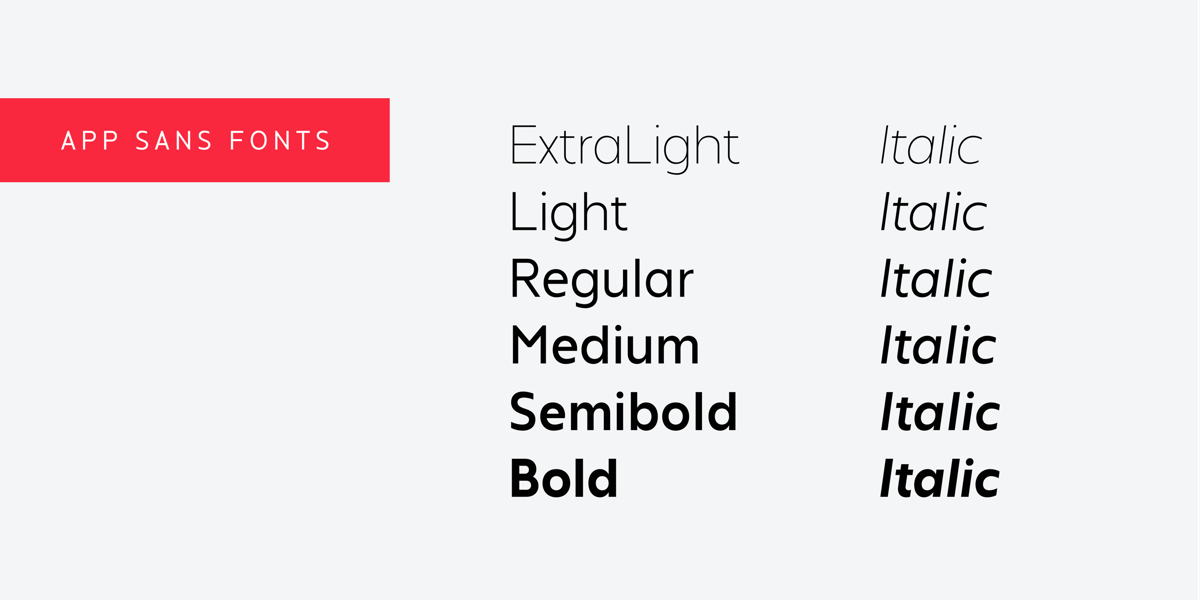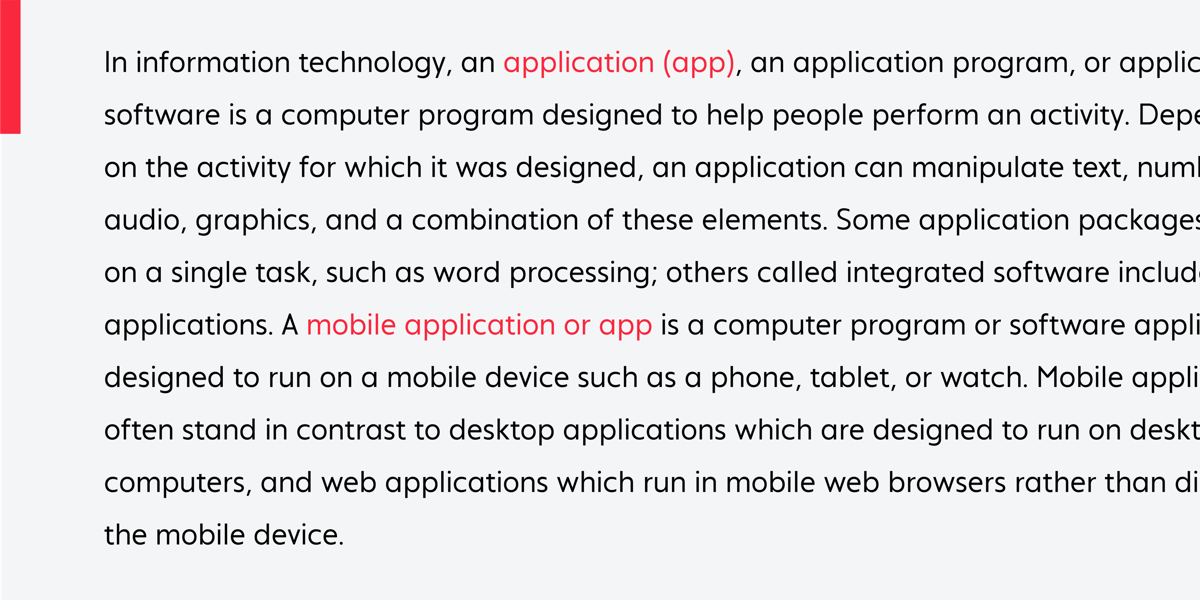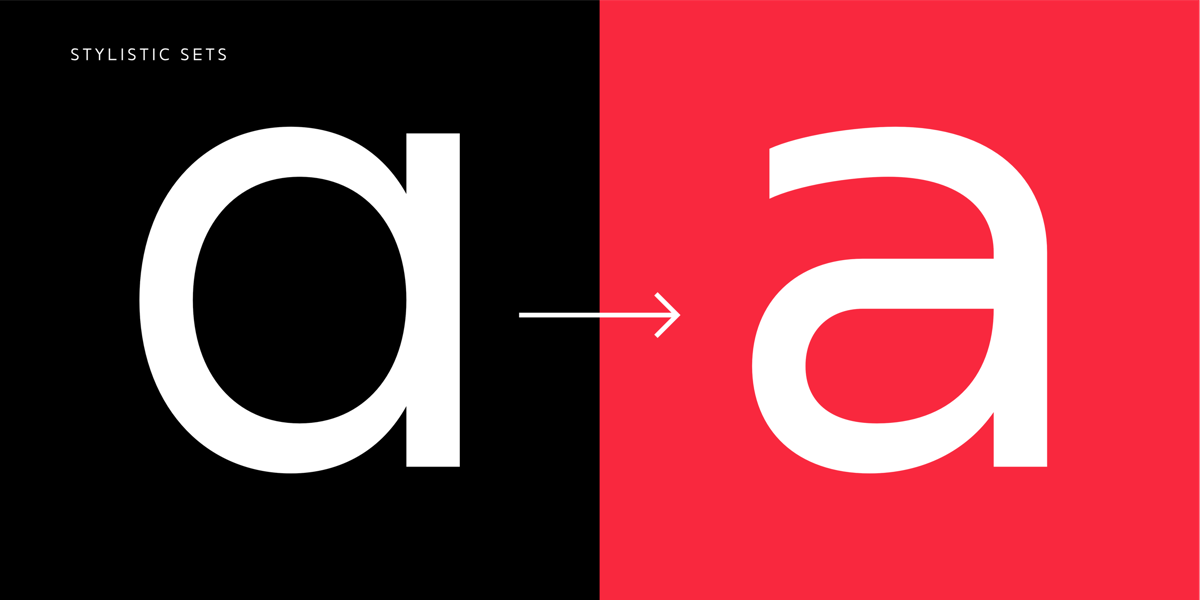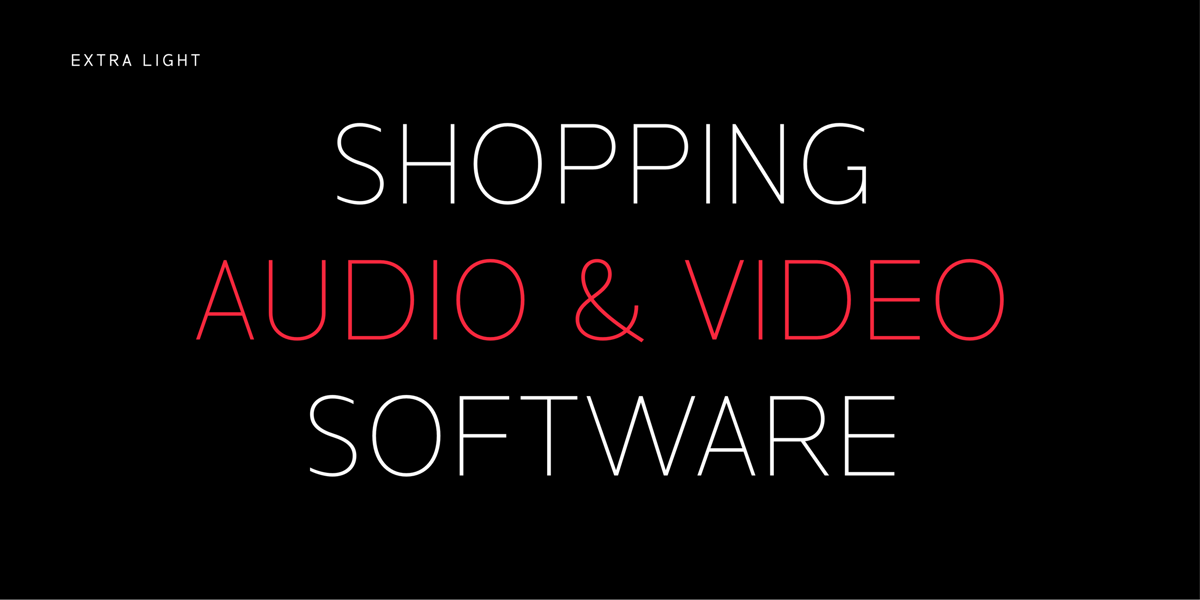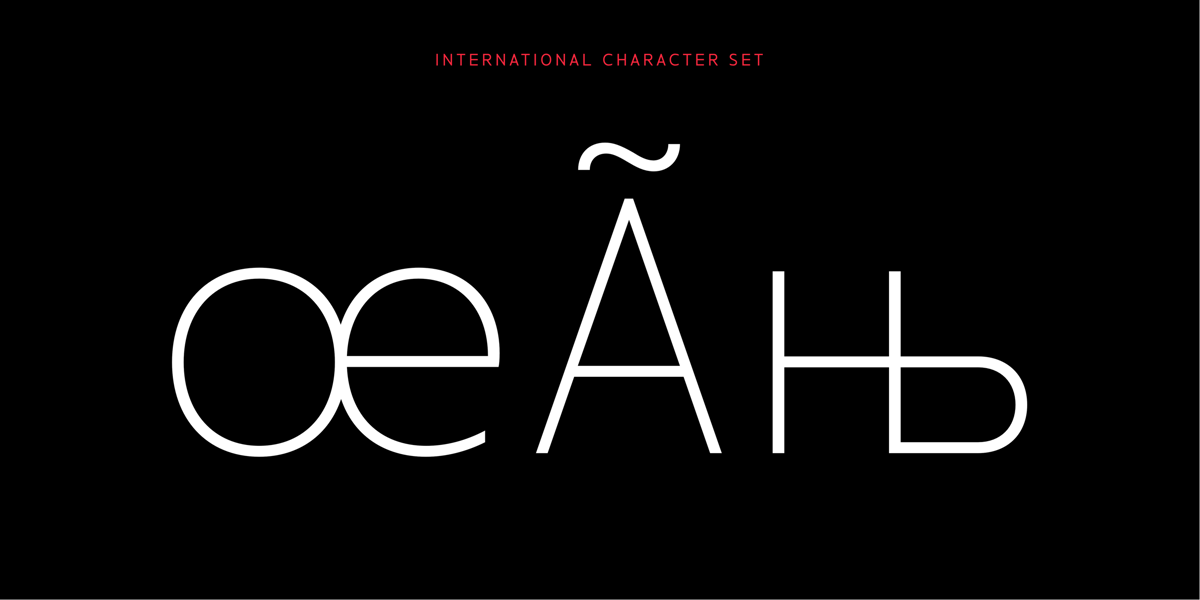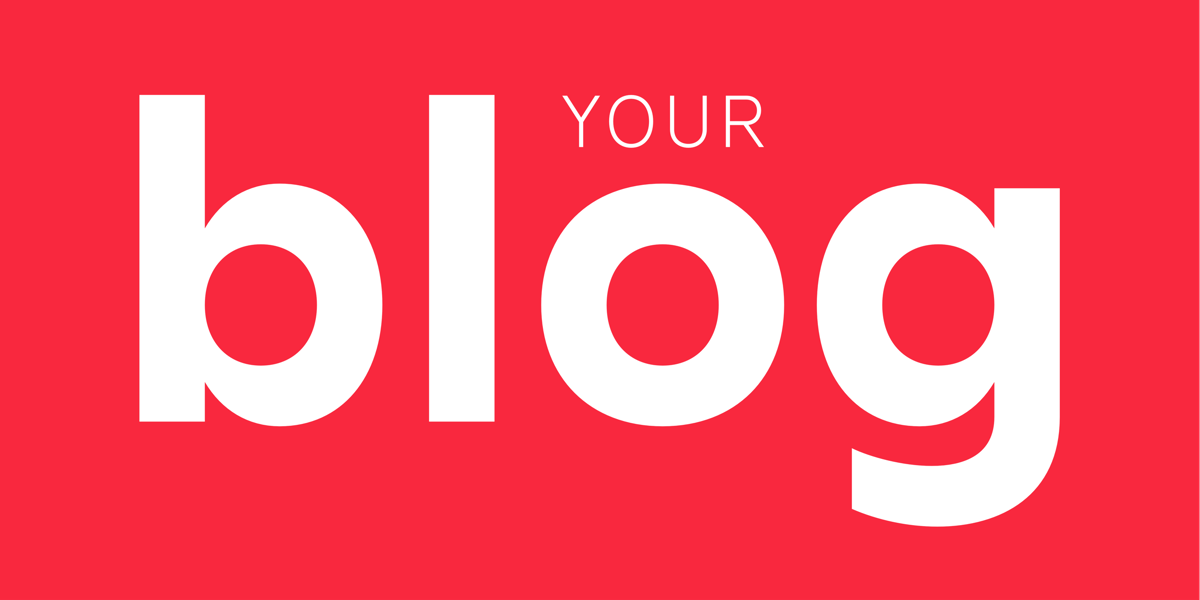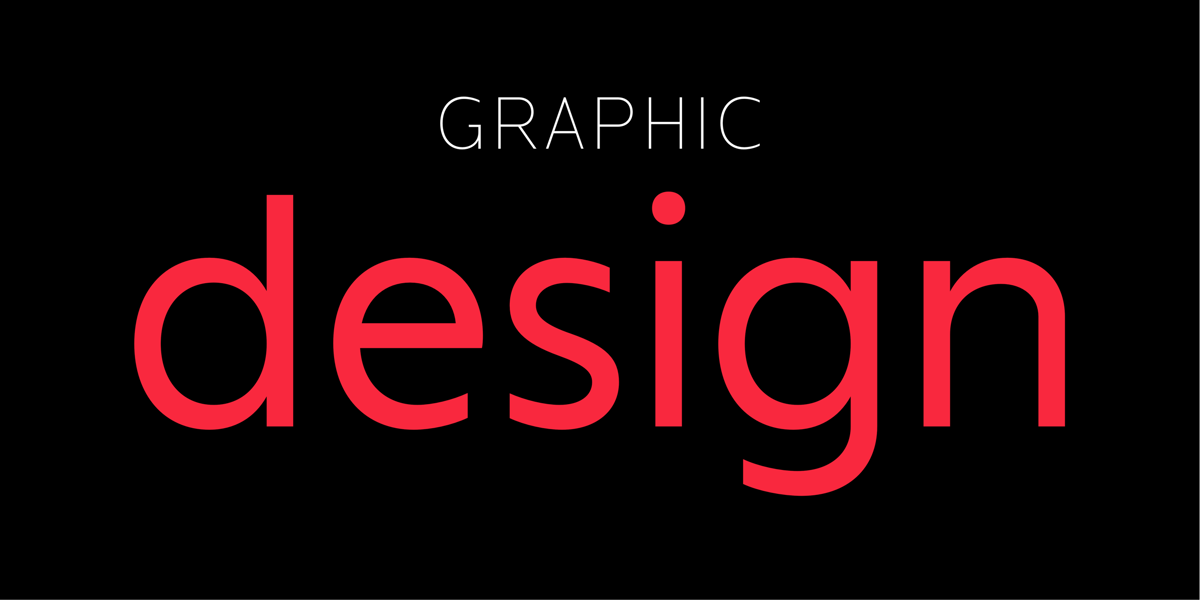
App Sans is a contemporary typeface with six weights and matching italics. Designed for both print and user interface (UI) applications, it adapts seamlessly to the needs of modern digital products. Whether used in mobile applications, websites, or interactive displays, App Sans provides the clarity and legibility expected from a UI typeface.
Its nearly monolinear letterforms create a clean and balanced appearance, while subtle stroke contrast adds a contemporary character that performs well in both large headlines and small body text.
Another strength of App Sans is its international focus. With a character set supporting multiple languages, including the Cyrillic alphabet, the family is well suited for global communication. In addition, numerous alternate glyphs, ligatures, and OpenType features provide extended typographic flexibility.
App Sans
Foundry: Sergej Lebedev
Designer: Sergej Lebedev
Weights: ExtraLight, Light, Regular, Medium, SemiBold, Bold
Styles: Roman and Italic